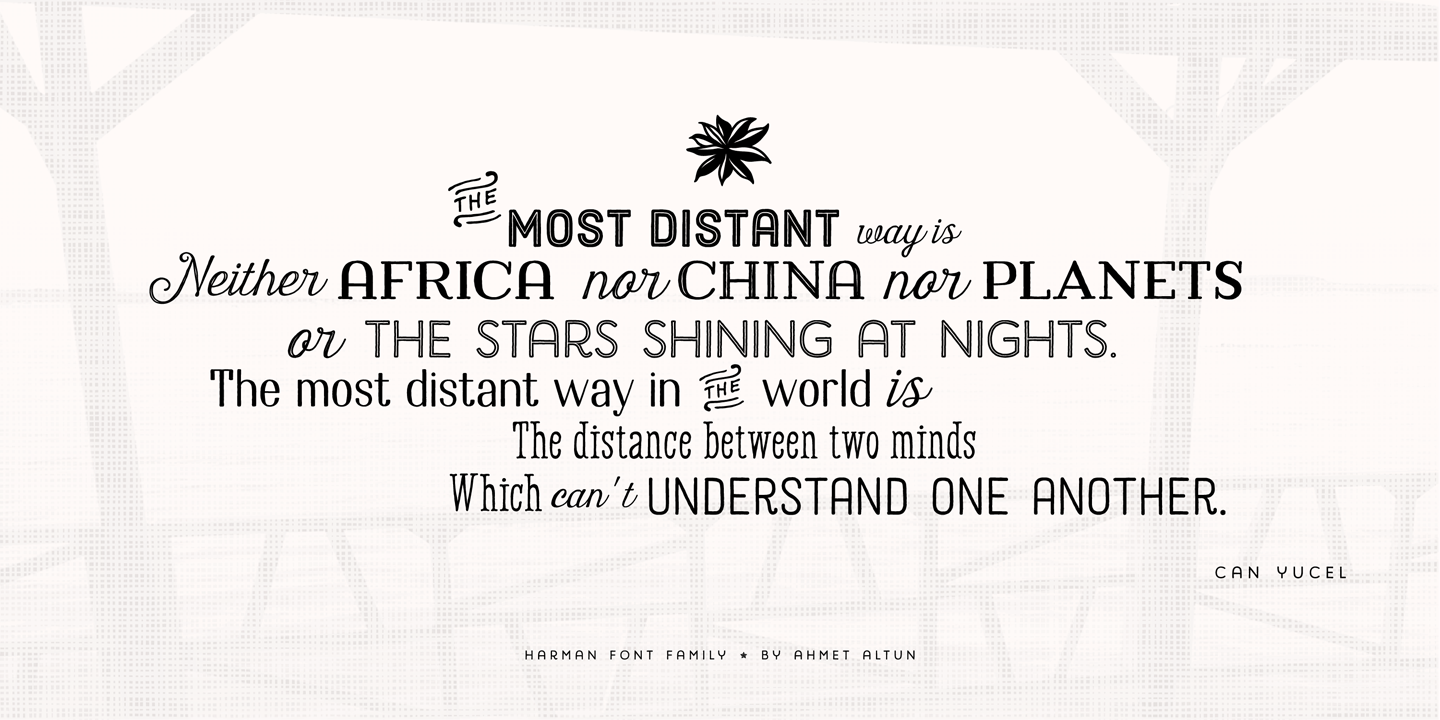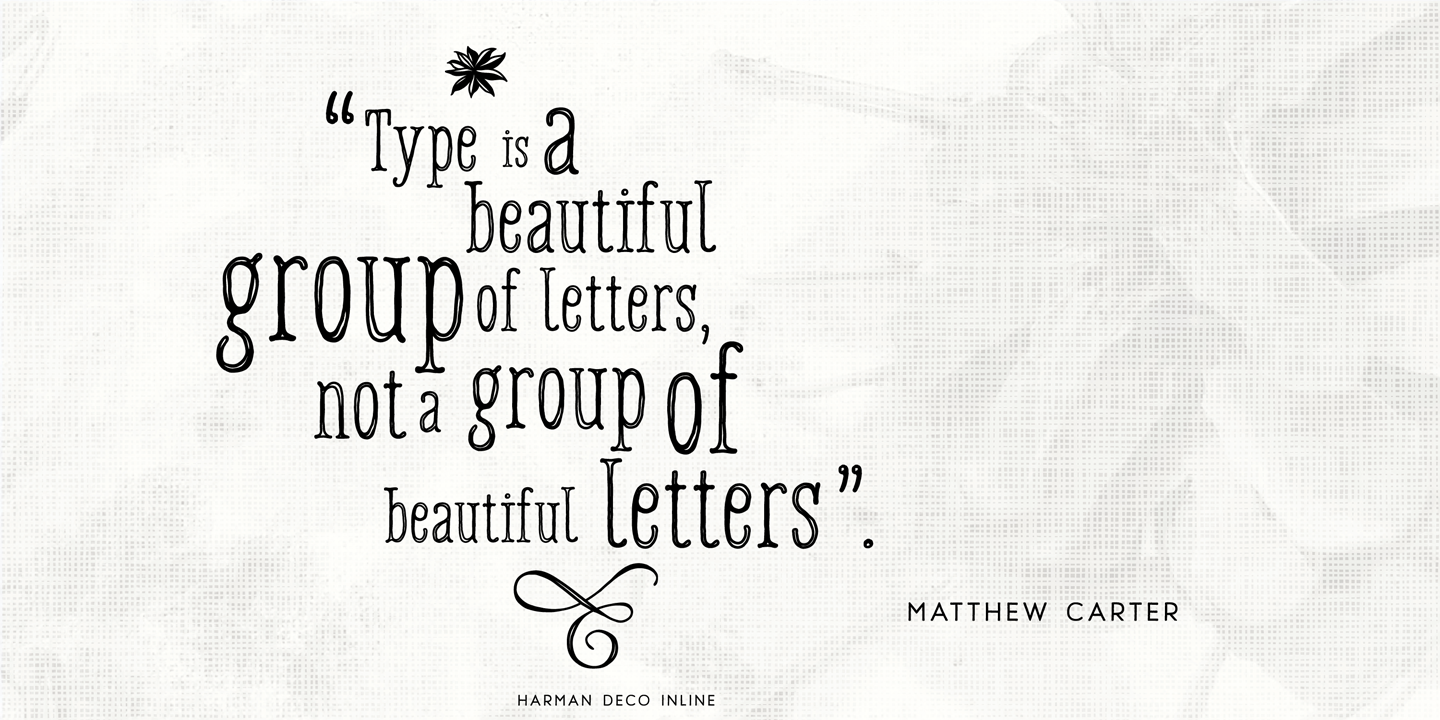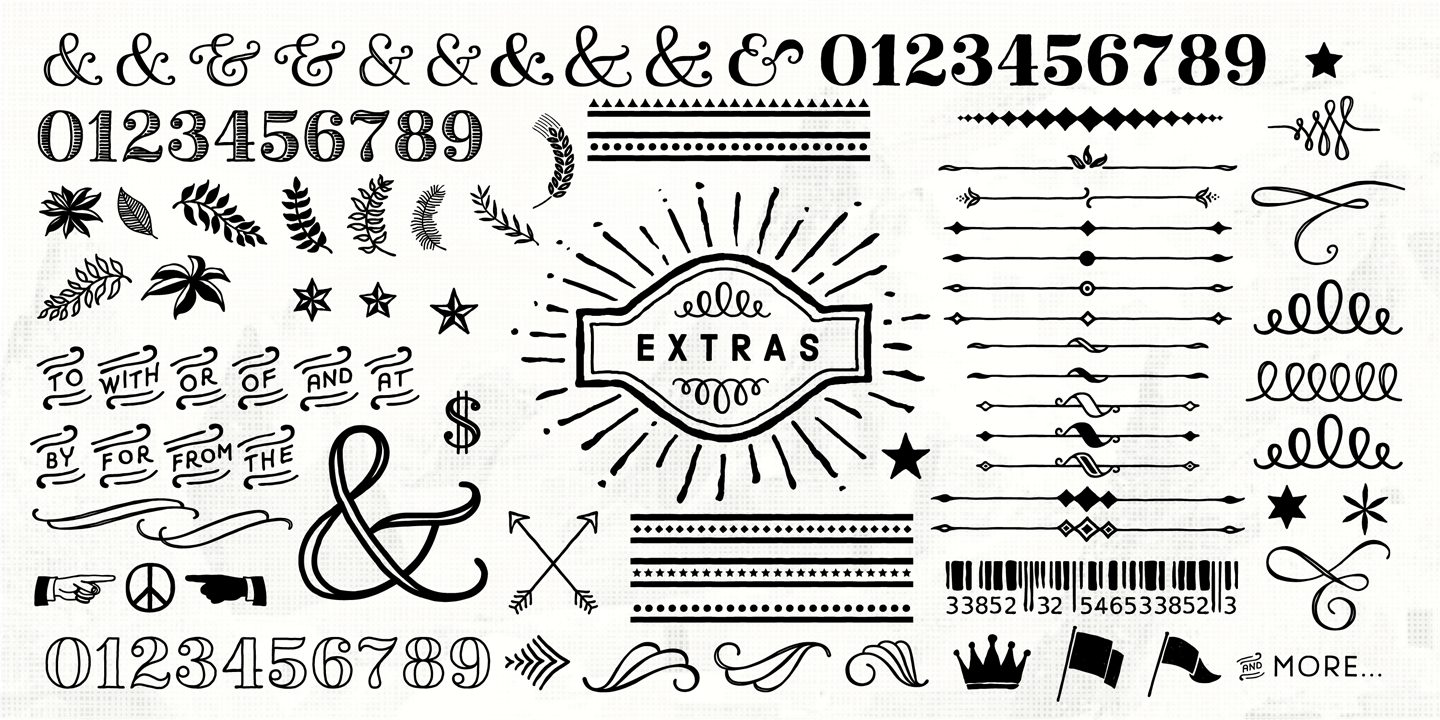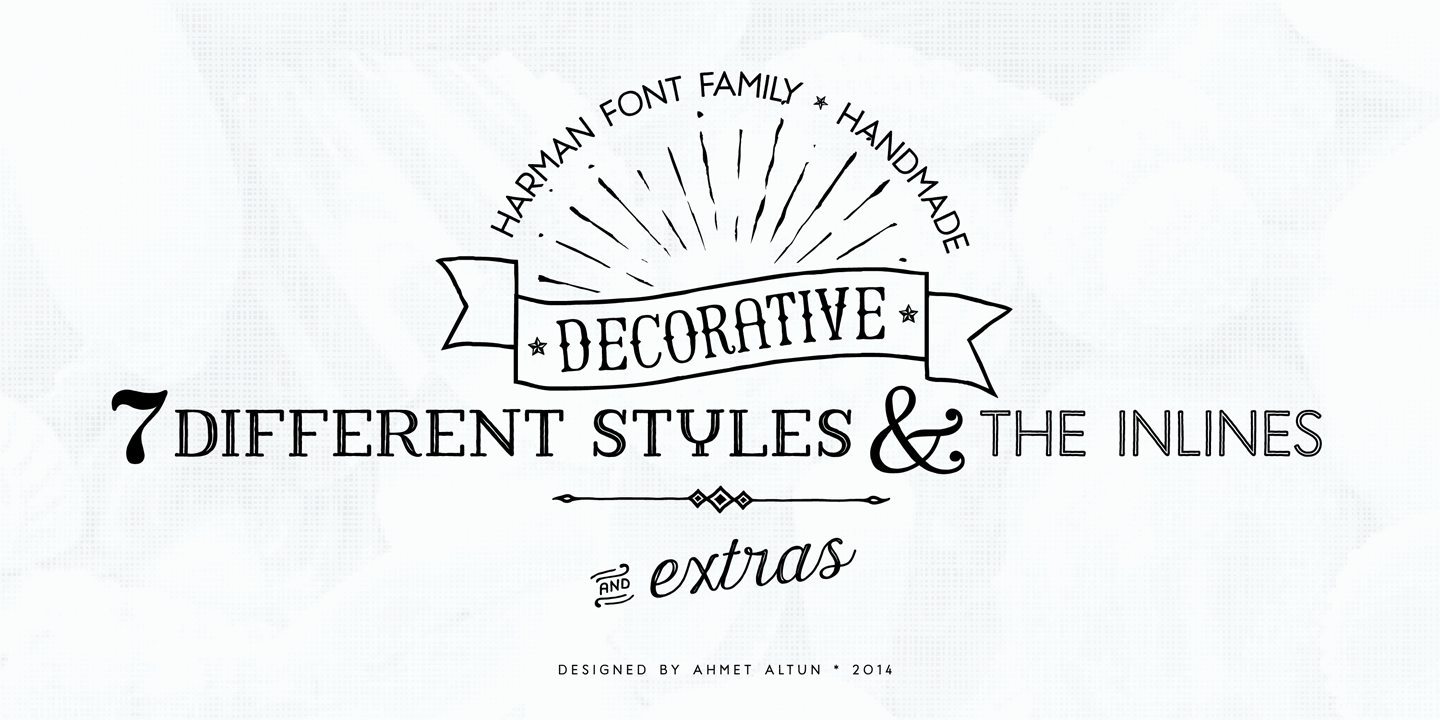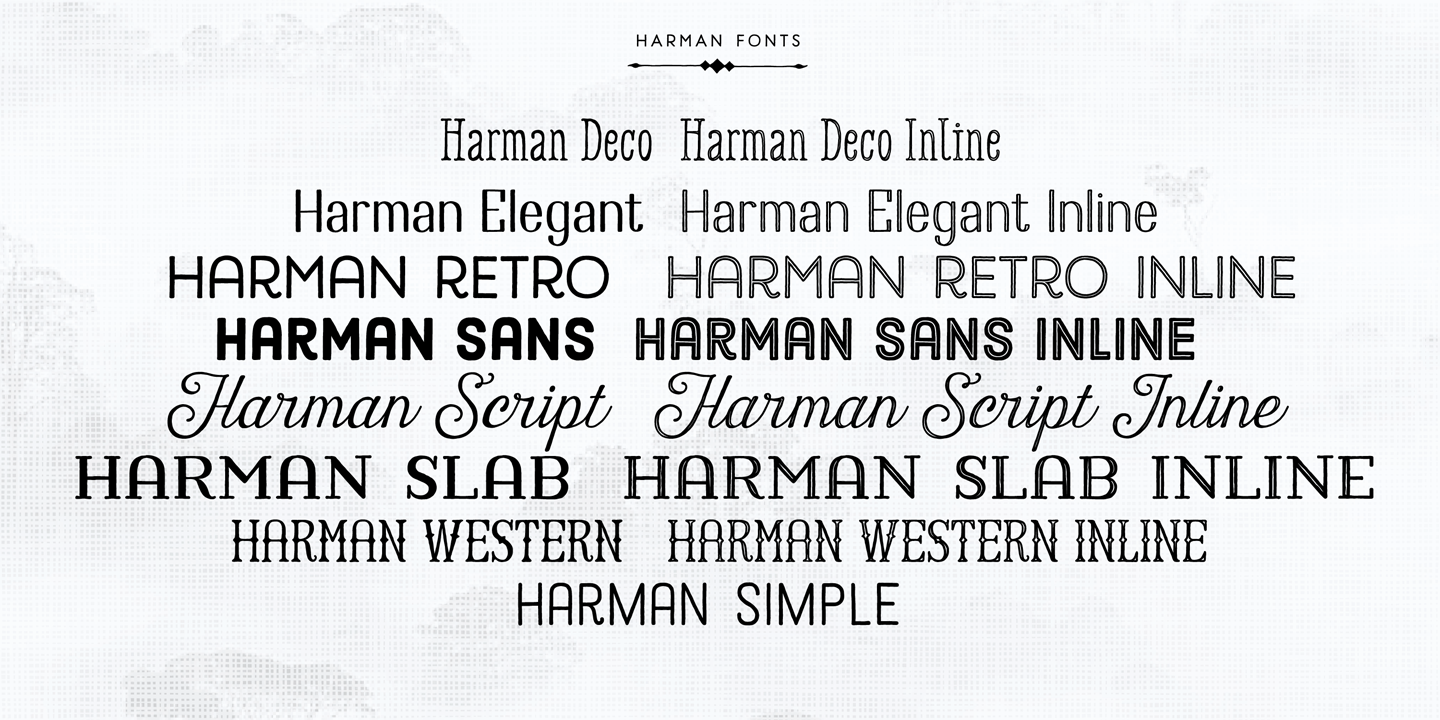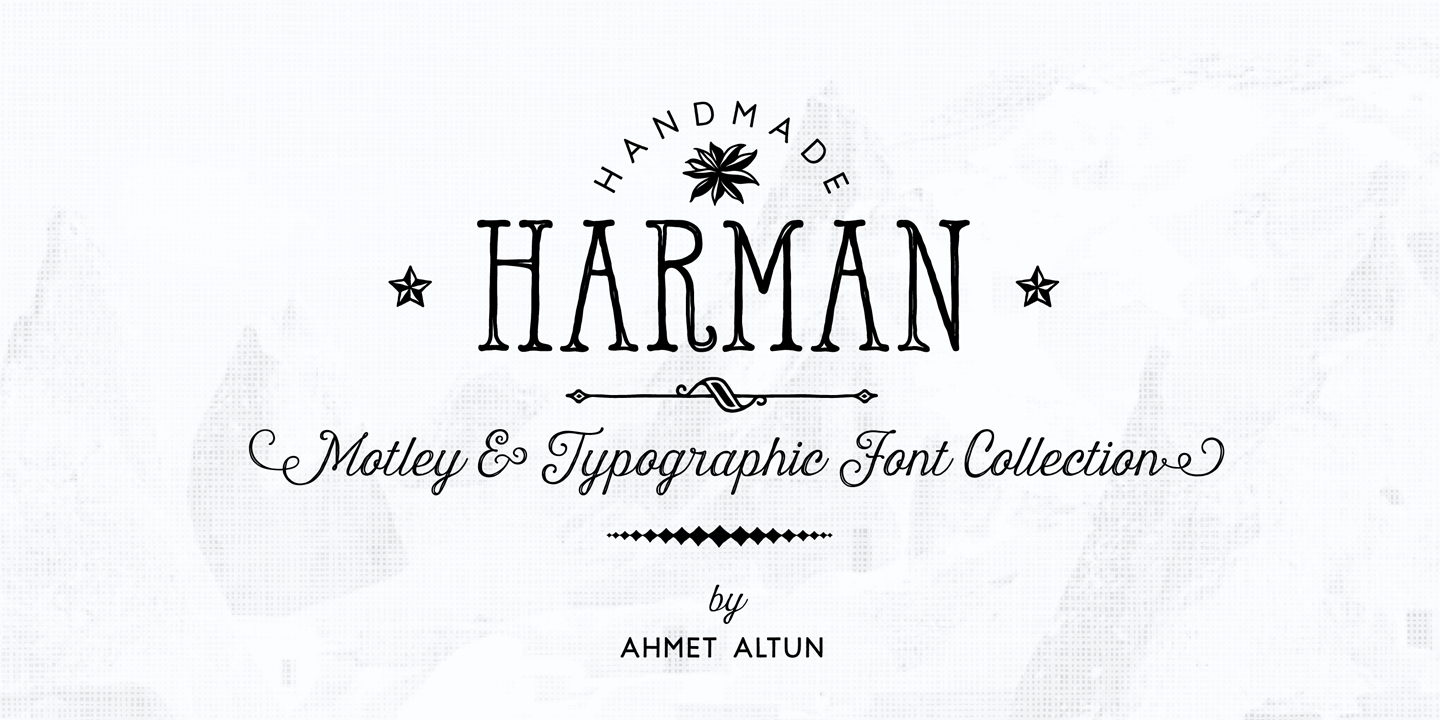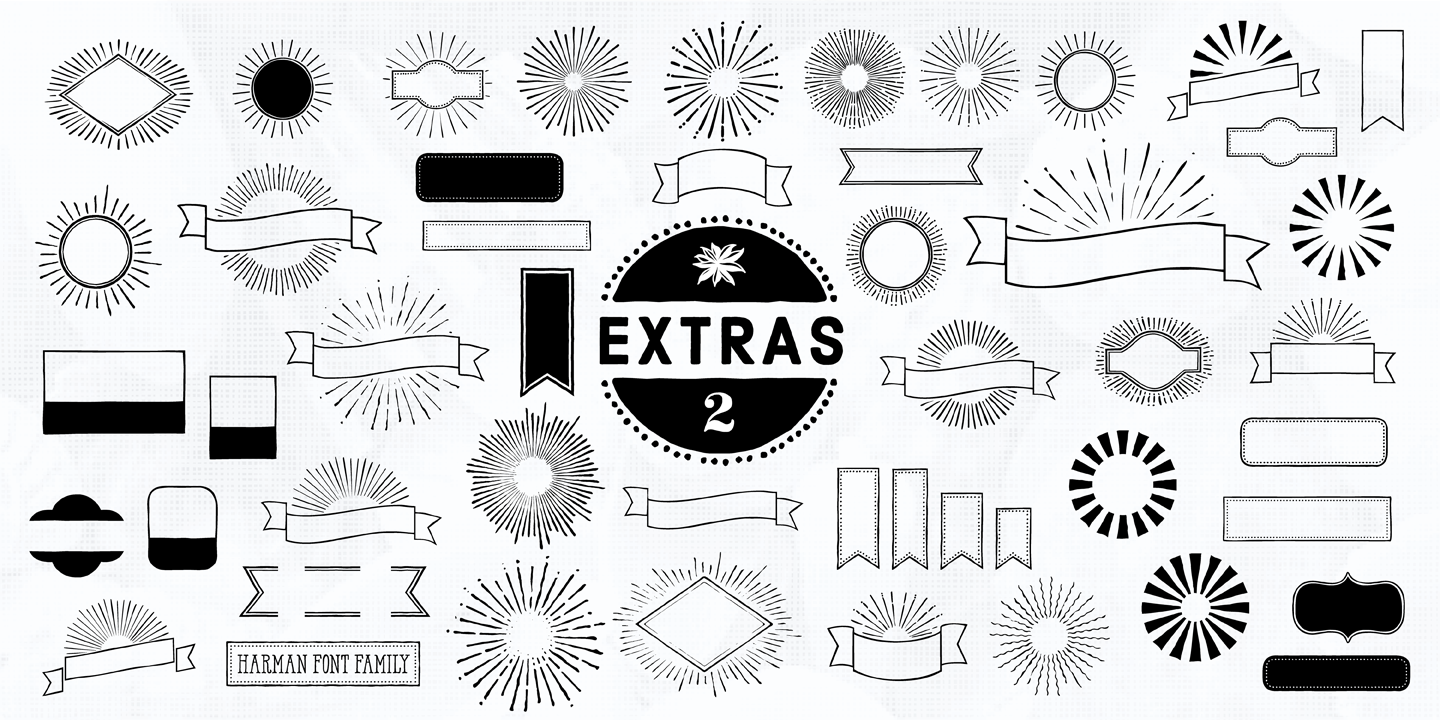
From Ahmet Altun
The word “Harman” is a Turkish word meaning the blend in English.
Harman Font Family Collection was designed carefully to create elegant typographic works. It would be a perfect choice to design posters, affiches, logos, t-shirt and magazine prints, eye-pleasing typographic designs and more.
OpenType features: Ligatures, Alternates
About Ahmet Altun
“I have been interested in type since my childhood,” says Turkey-based designer, Ahmet Altun. “So, during the new generation of the symbian phones, I got started writing software for the phones’ fonts and themes as a hobby. After that, I began to work on only font design professionally.”